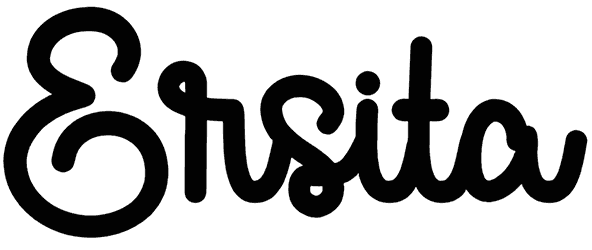
Ersita Font
Are you looking for a font that gives more elegance and sincerity to your official texts? So Ersita is for you.
This cursive font is a special type of calligraphy, written by hand, that can give an intimate mood to your texts. So, if you want to publish your love posts, tattoos, and even important documents with a monoline script font, Ersita is one of the best options.